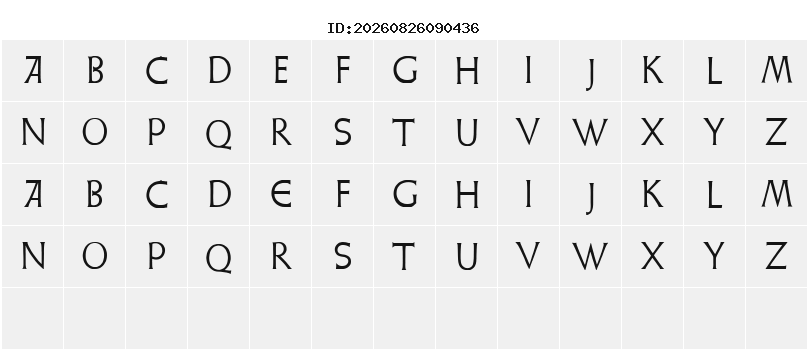
• Designer: Dieter Steffmann
• Description: Weiss Lapidar, geschaffen von Emil Rudolf Weiss. Digitalisiert von Dieter Steffmann. Kreuztal
About Weiss Lapidar.ttf
Weiss Lapidar.ttf is a modern, elegant sans-serif font designed for ultimate readability and visual harmony. Perfect for branding, headlines, web design, and print materials.